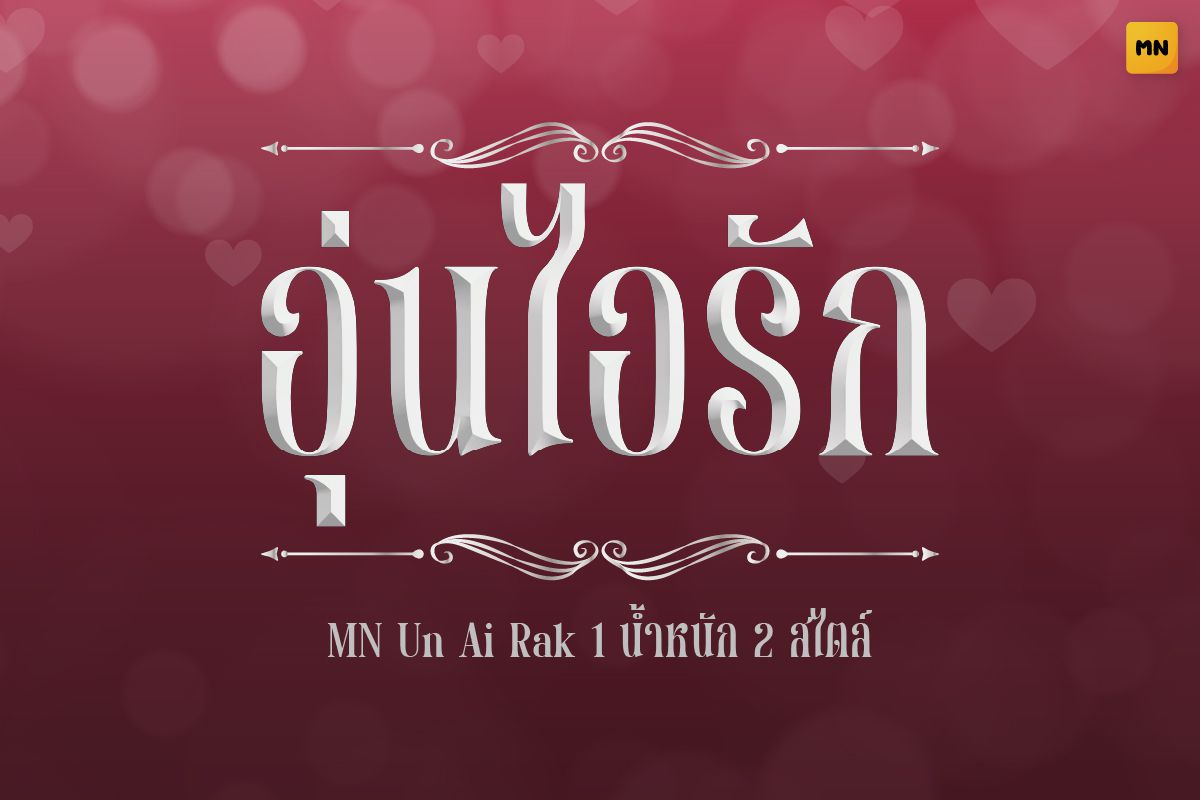
MN Un Ai Rak Italic
A classic Thai typeface with elegant curves and a romantic flair. Its refined and gentle strokes make it perfect for wedding invitations, romantic titles, and sophisticated branding.